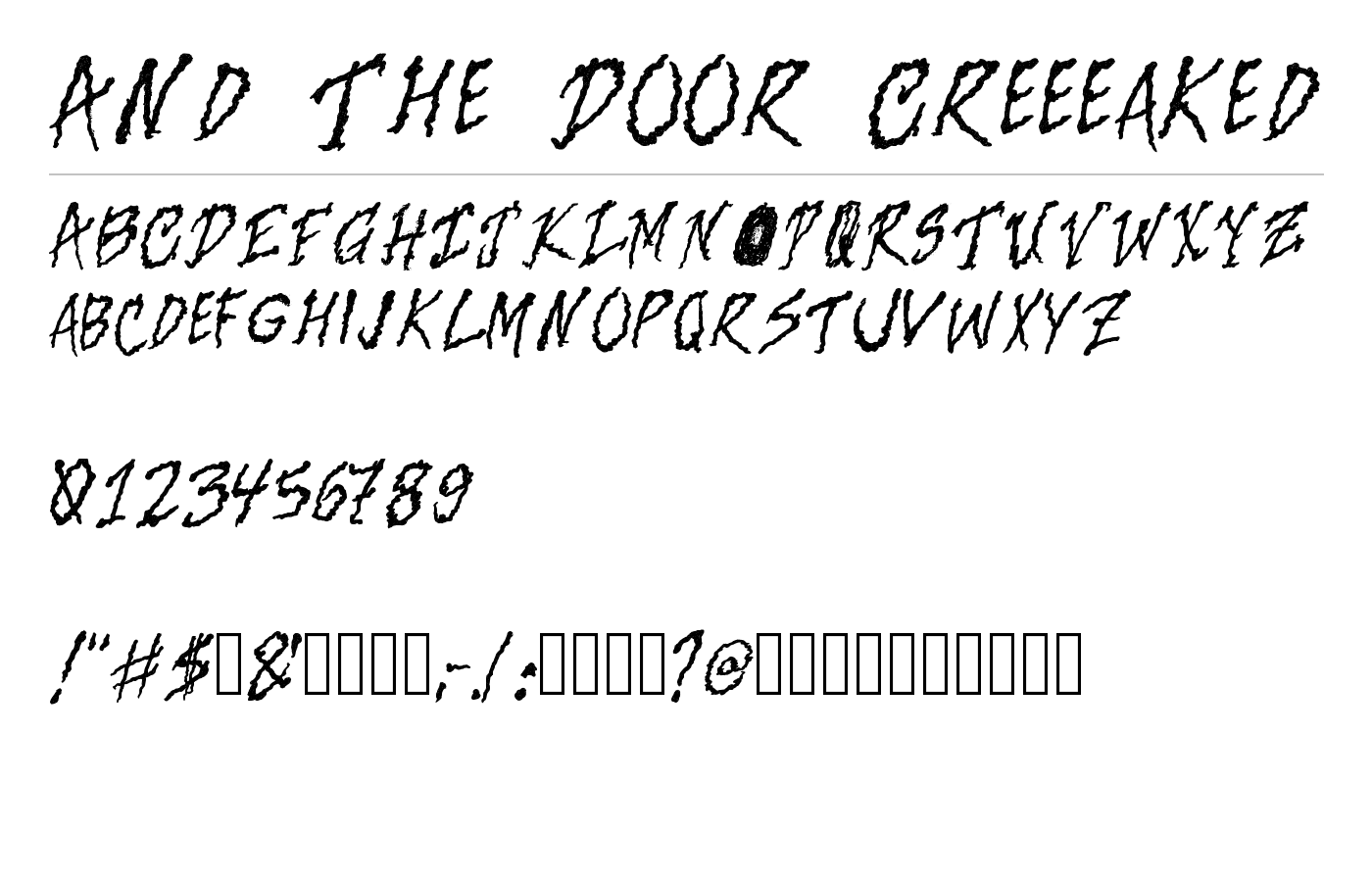
And The Door Creeeaked is a rough, hand-drawn script font with a spooky, distressed feel. Its irregular, jagged strokes and uneven letterforms give it an eerie, vintage horror vibe, perfect for Halloween themes, haunted house posters, or mysterious storytelling designs. This font works best for expressive headlines or titles where a creepy, unsettling atmosphere is desired.
And The Door Creeeaked Font
About And The Door Creeeaked Font